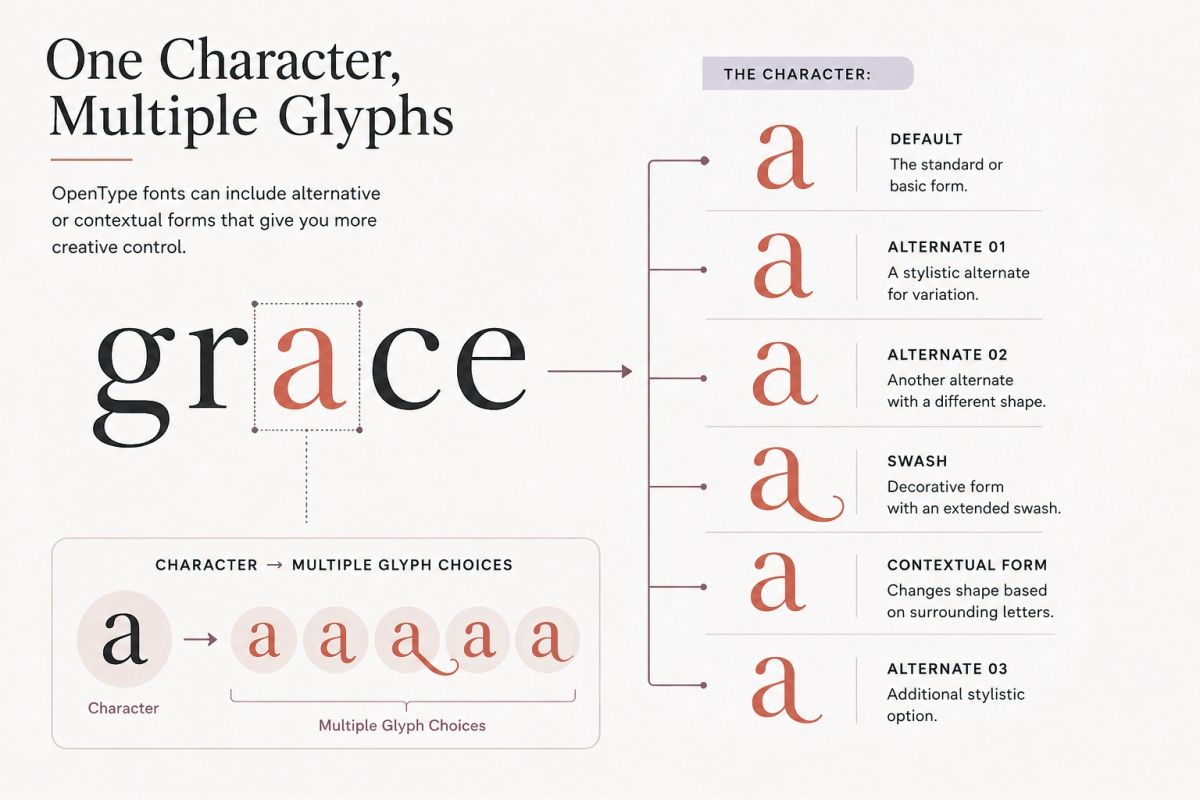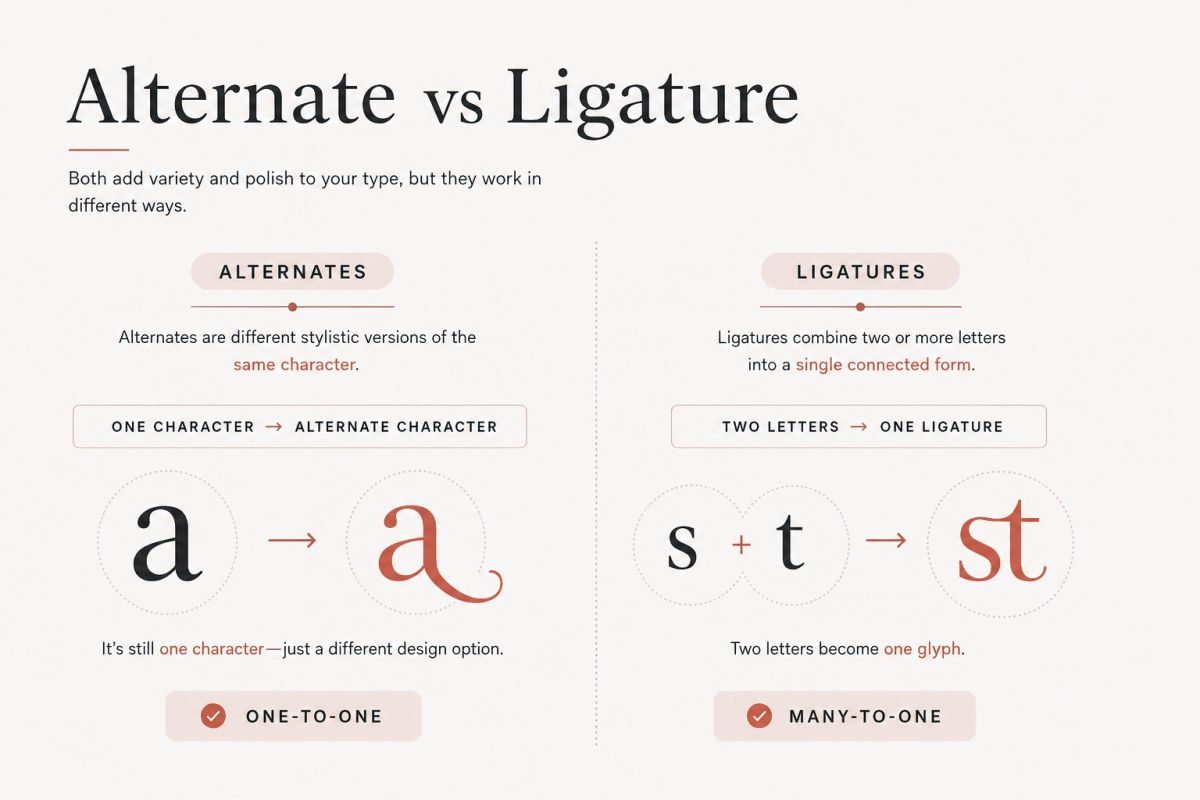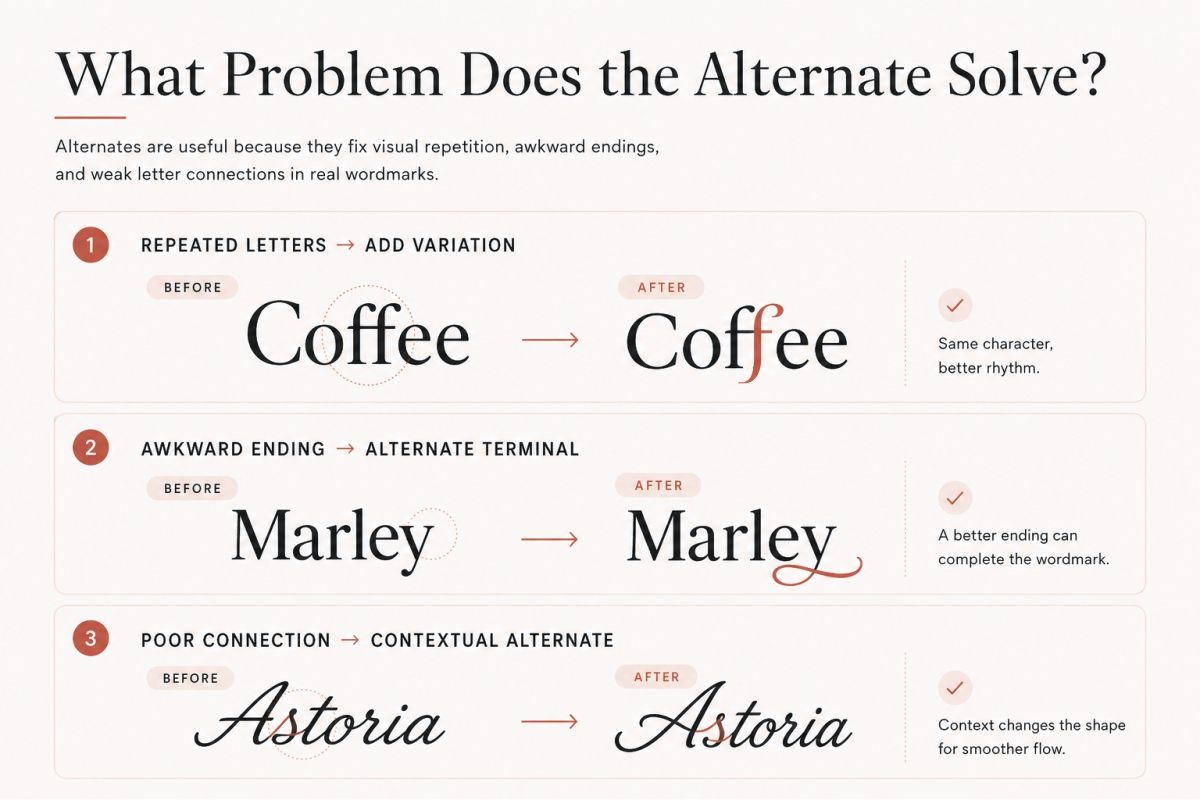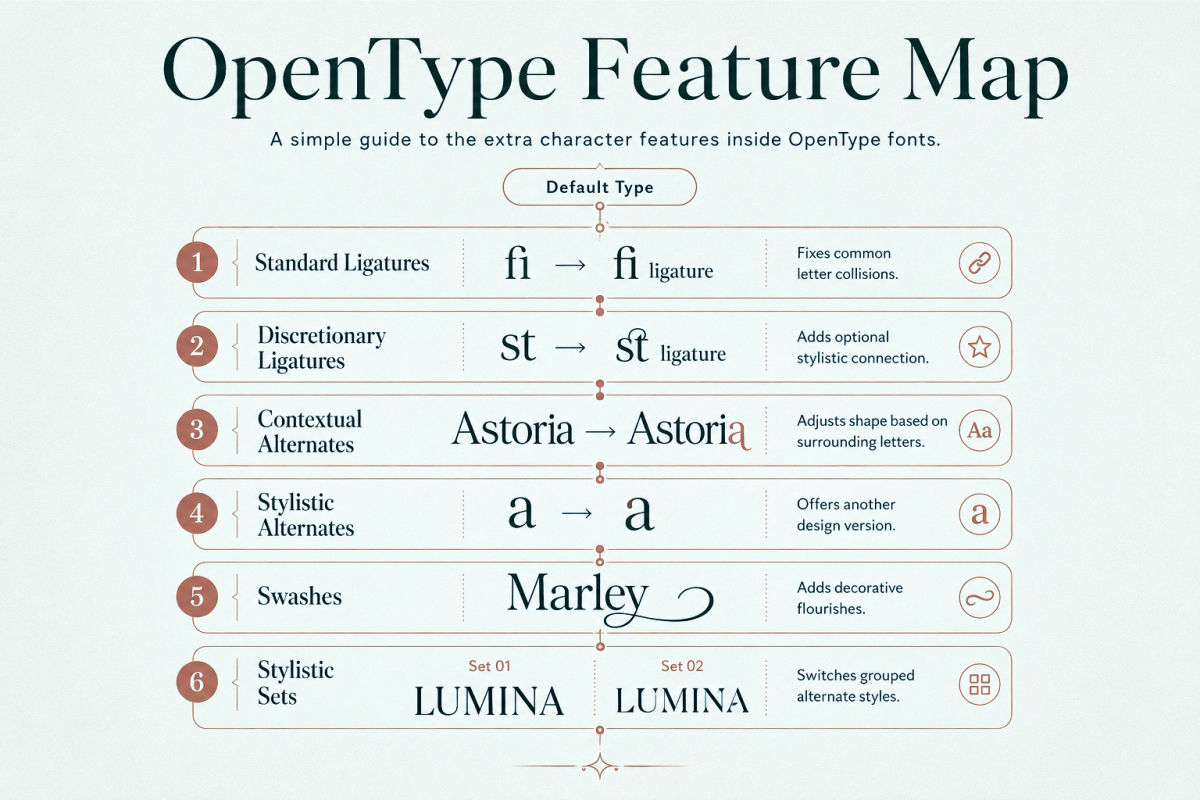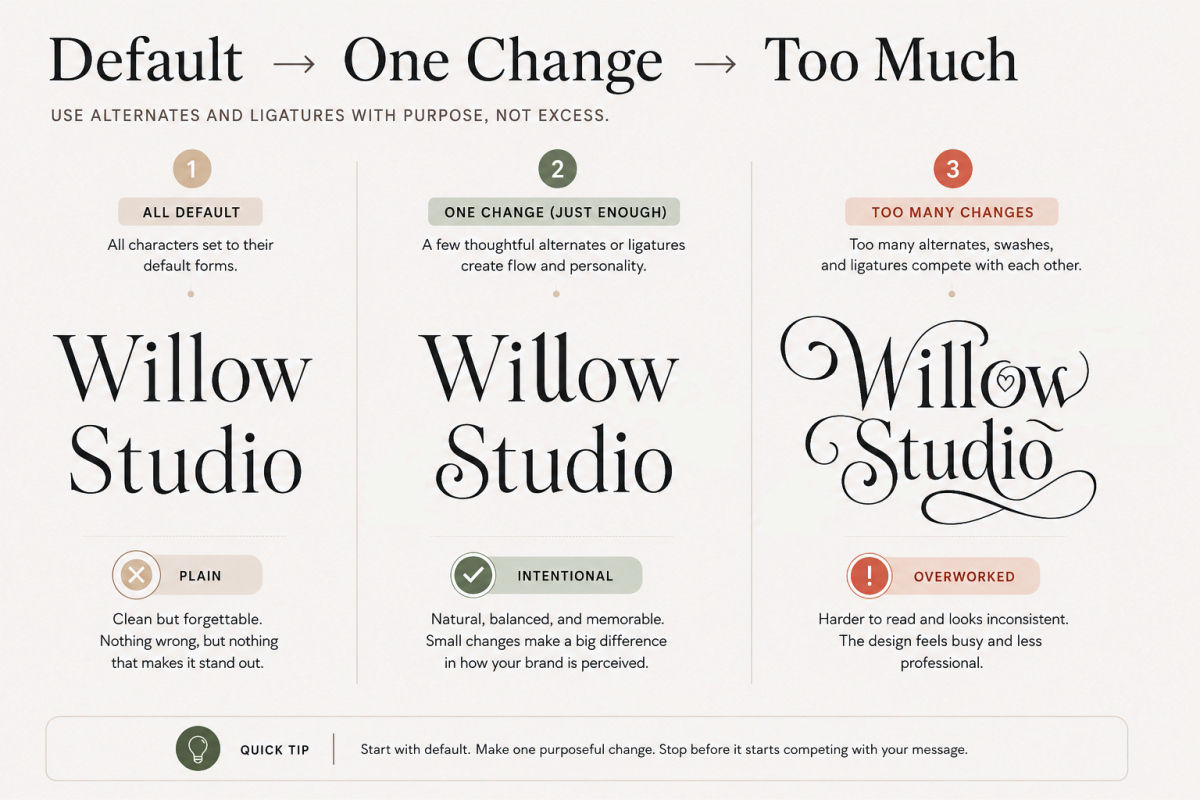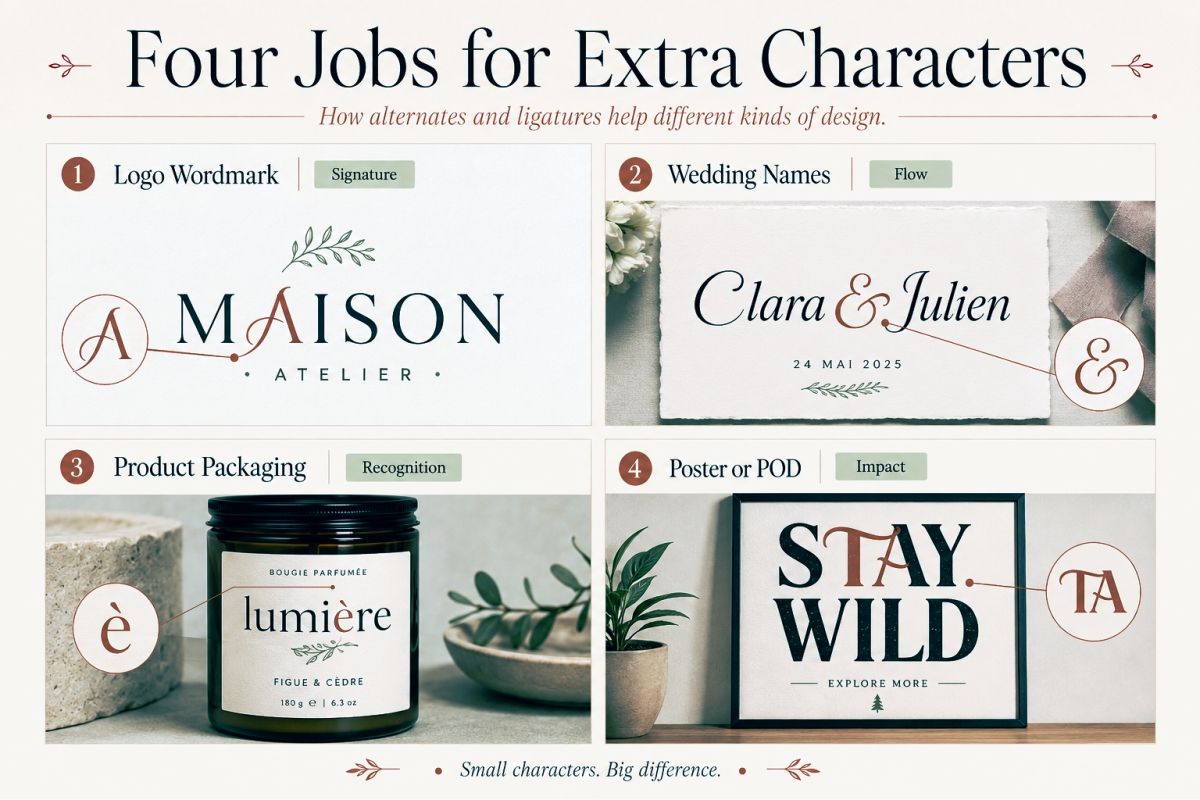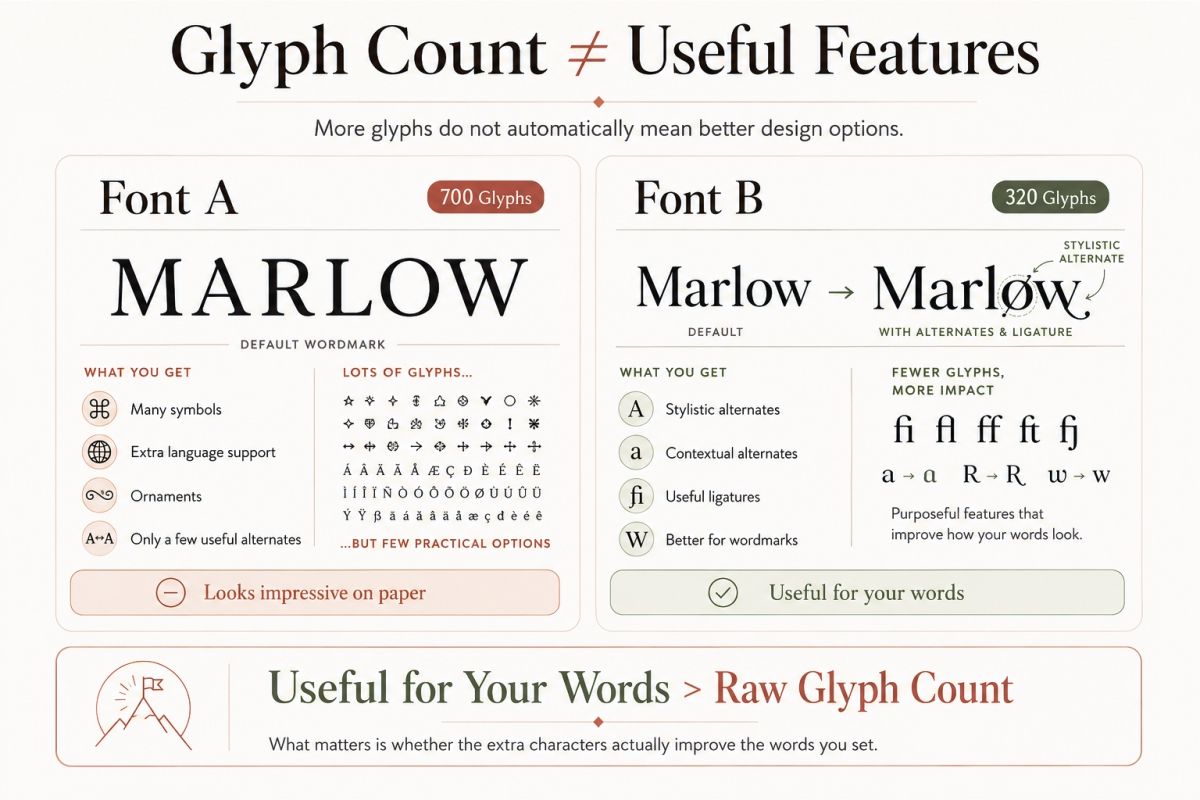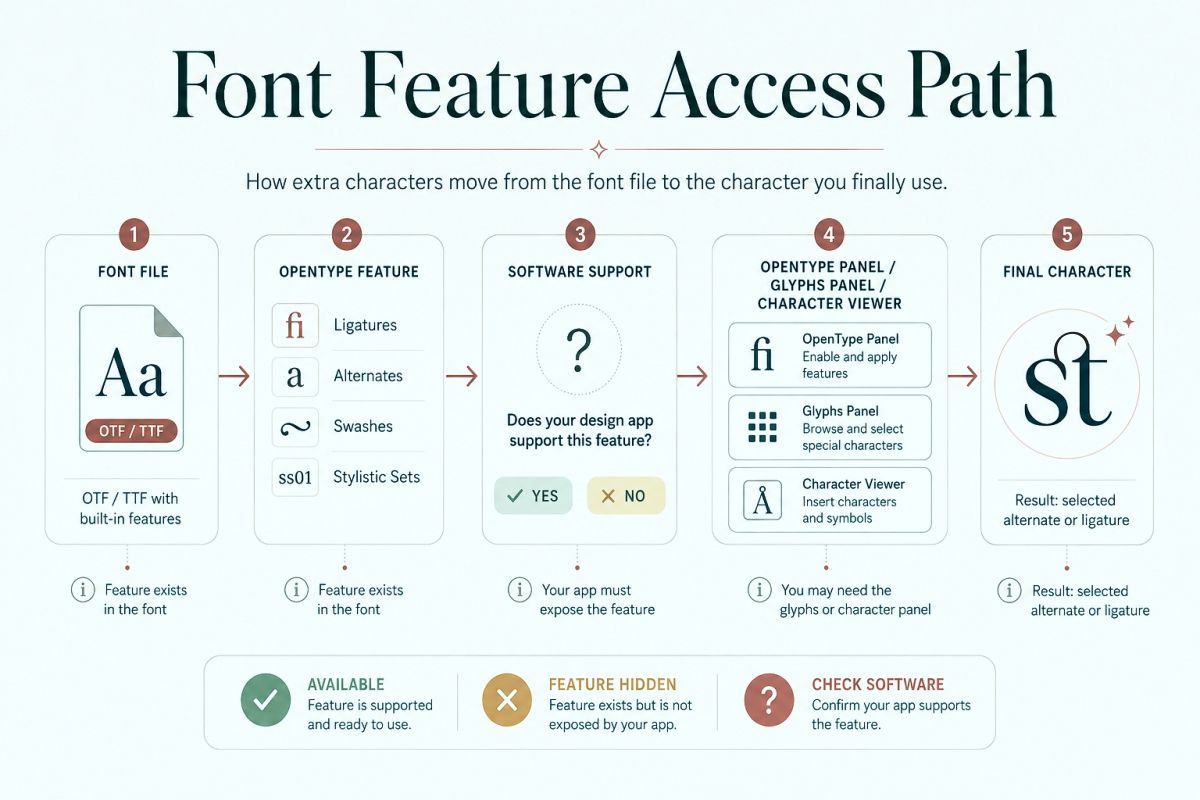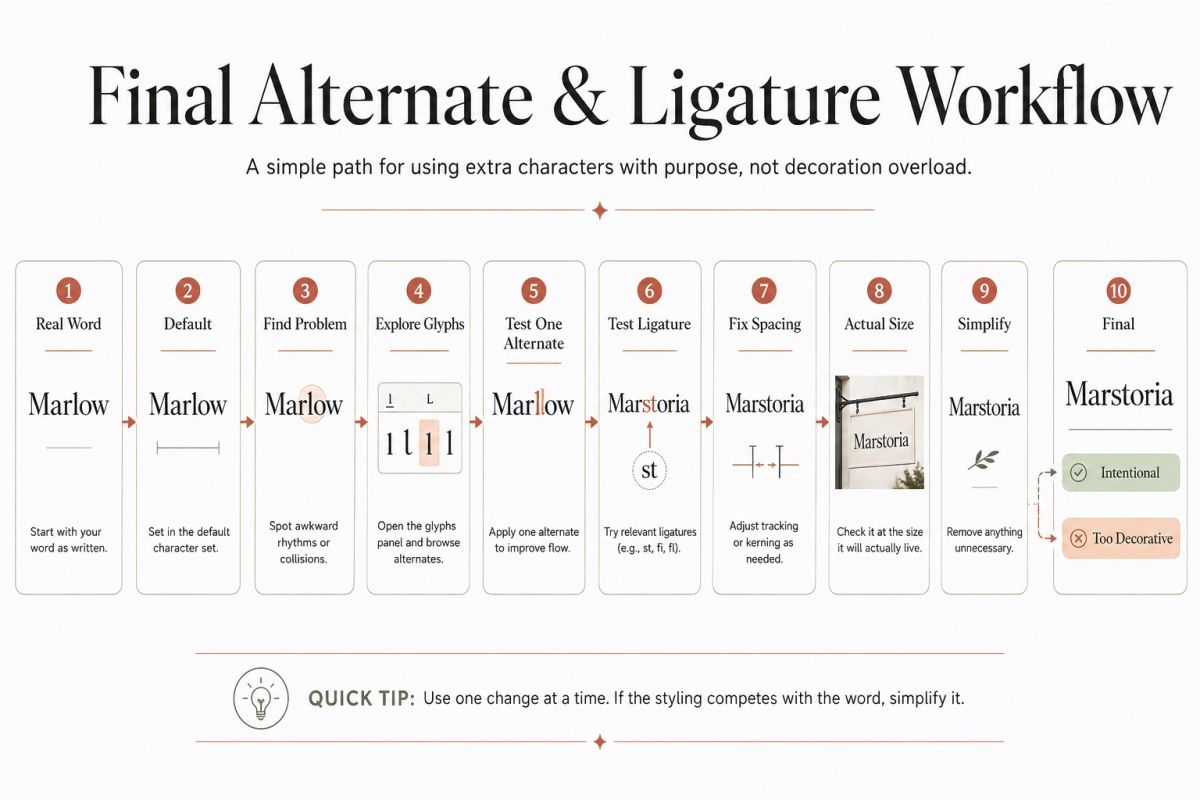
Fonts with Alternates and Ligatures: How to Use Extra Characters in Design
Sometimes you install a font, type a word, and think, “That looks nice.”
Then you open the glyph panel.
Suddenly, the same letter has four different shapes. There are long swashes, unusual letter combinations, alternate endings, decorative capitals, and characters you would never discover by simply typing on your keyboard.
This is where fonts with alternates and ligatures become much more interesting.
These extra characters are not just decorative bonuses. Used carefully, they can help you fix awkward letter combinations, make repeated letters feel less repetitive, create more distinctive logos, and give display typography a more custom-lettered look.
The important part is knowing when to use them and when to leave them alone.
I like to think of OpenType features as a typography adjustment kit. The default alphabet gives you the structure. Alternates, ligatures, swashes, and stylistic sets give you ways to refine that structure.
In this guide, I’ll show you what these features actually do, how to find them, how I use them in real design work, and what you should check before buying a font because of its extra characters.
What Are Fonts with Alternates and Ligatures?
A normal keyboard makes typography look simpler than it really is.
You press the letter A, so you see an A.
But technically, the character you typed and the visual shape displayed by the font are not exactly the same thing. OpenType fonts can contain several different glyphs that represent the same character, as well as glyphs that replace combinations of multiple characters.
That distinction matters.
The OpenType layout system can map characters to alternate glyphs, ligatures, contextual forms, and other substitutions. You can read the more technical explanation in the Microsoft OpenType Layout overview.
In practical design terms, this means one font may contain:
• A normal lowercase a
• A rounder alternate a
• A handwritten alternate a
• An a with an extended terminal
• A special version used only beside certain letters
You still typed the same character.
The font simply gives you more than one way to draw it.
Alternates and Ligatures Are Not the Same Thing
They often get grouped together in product descriptions, but they solve different problems.
An alternate is another version of a character.
A ligature replaces two or more characters with a specially designed combined glyph.
For example:
FeatureWhat ChangesSimple Example
Stylistic alternateOne character becomes another versiona → alternate a
Standard ligatureCommon letters become one glyphf + i → fi
Discretionary ligatureOptional letter combination becomes a custom forms + t → decorative st
Contextual alternateA letter changes because of neighboring lettersDifferent t depending on what follows
SwashA character receives an extended decorative formFinal h with a long tail
Stylistic setSeveral coordinated characters change togetherAlternate set for a, g, y, R
That difference becomes important once you start designing with them.
Extra Characters Should Solve a Design Problem
One of the easiest mistakes with feature-rich fonts is thinking:
I paid for the alternates, so I should use the alternates.
I would approach it the other way around.
Start with the normal font.
Then look for places where the typography needs help.
Maybe you have:
Cocoa
The repeated lowercase o makes a handwritten font feel slightly mechanical because both letters are perfectly identical.
Changing one of them to an alternate can introduce subtle variation.
Or perhaps you are designing:
Bloom
The transition between two characters feels awkward in a script font.
A contextual alternate may create a smoother connection.
Or maybe your logo says:
Wildflower
The standard final r ends too abruptly, while an alternate with an extended terminal balances the empty space to the right.
Now the alternate has a job.
That is very different from randomly replacing letters because the glyph looks impressive by itself.
I Use This Question Before Choosing an Alternate
Ask:
What does this character improve?
A useful alternate may improve:
• rhythm;
• balance;
• connection;
• spacing;
• repetition;
• silhouette;
• personality;
• or the beginning and ending of a word.
If I cannot identify what it improves, I usually keep the default character.
The OpenType Features You Are Most Likely to Encounter